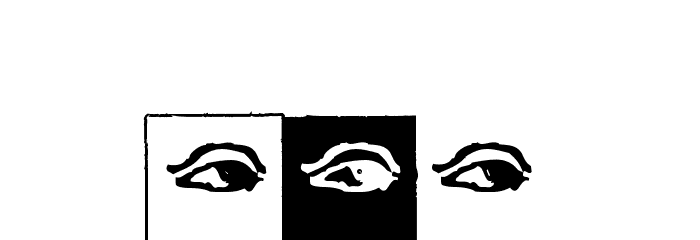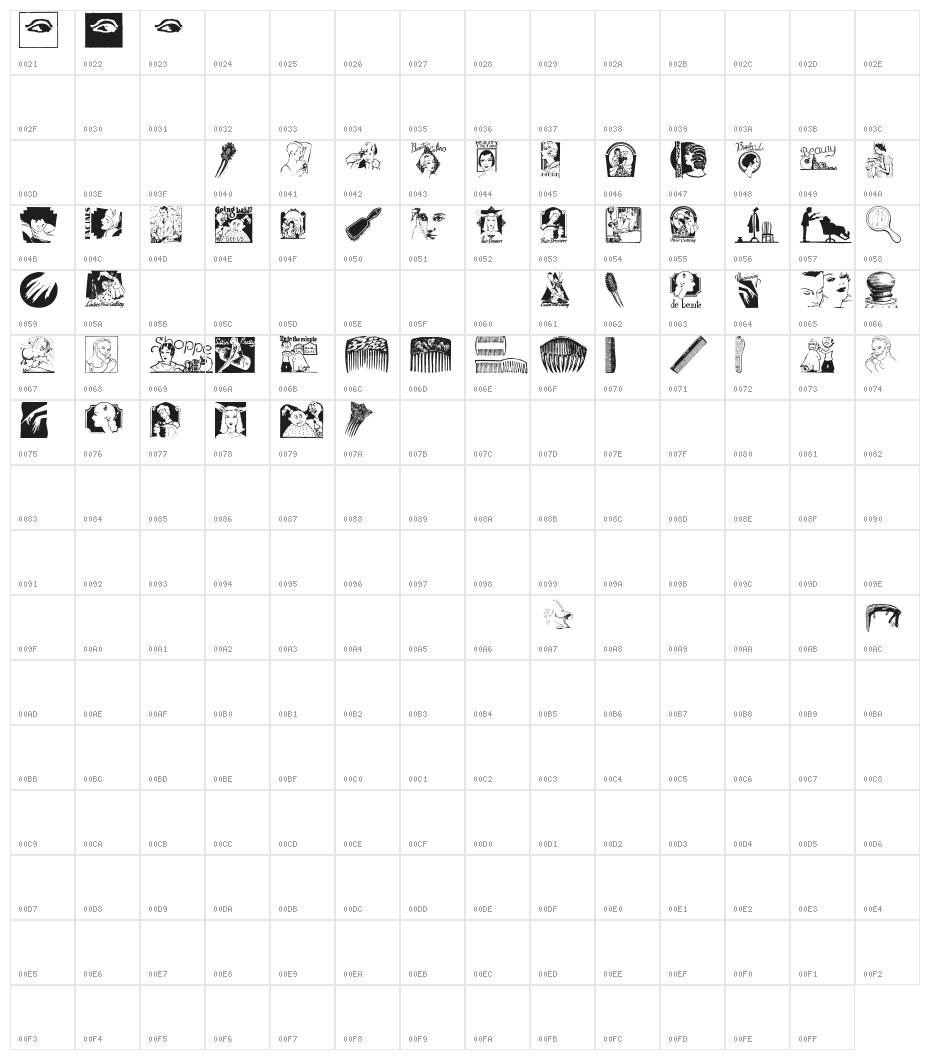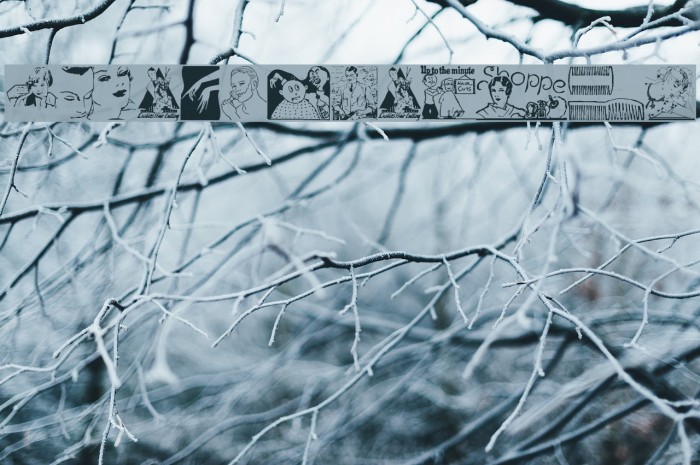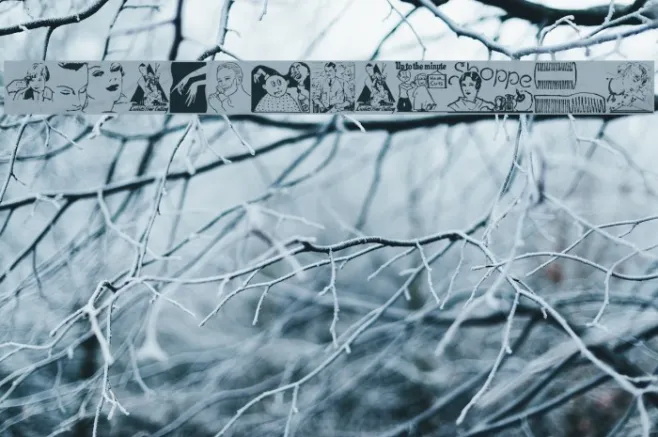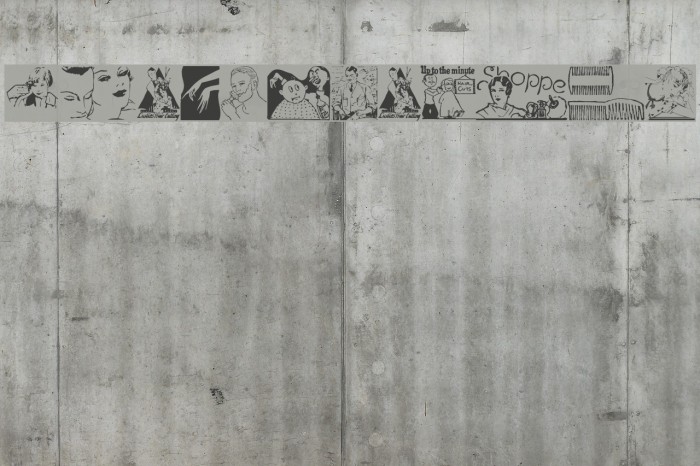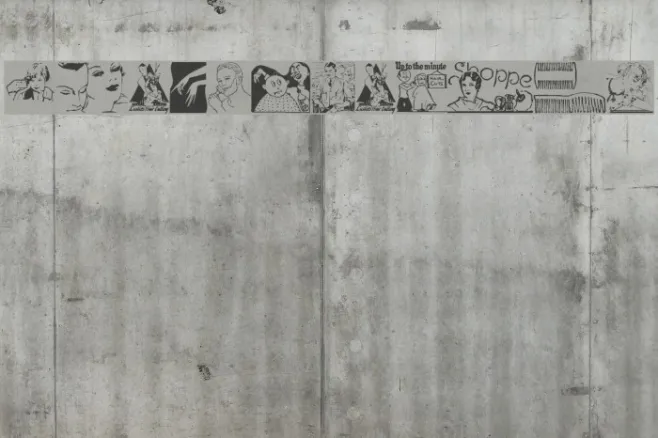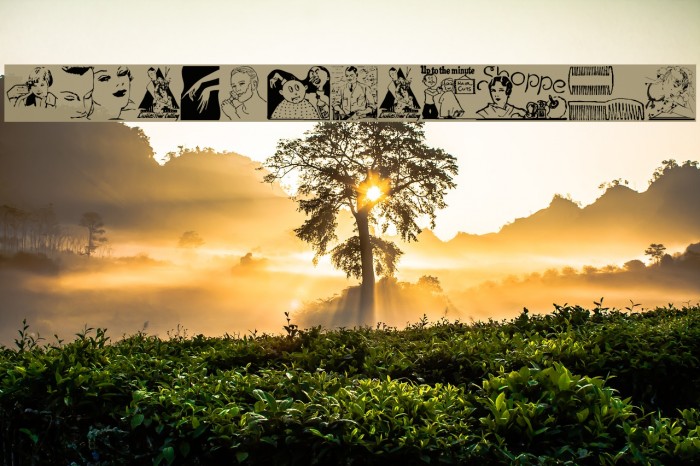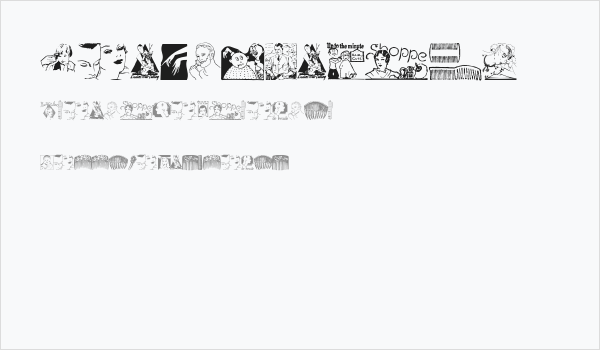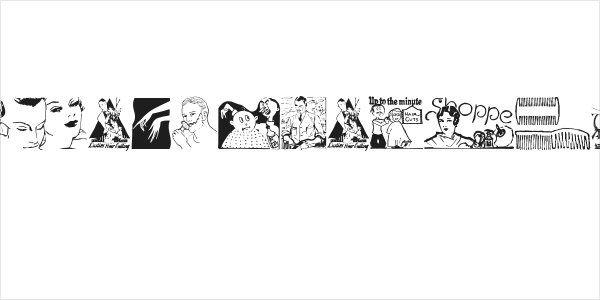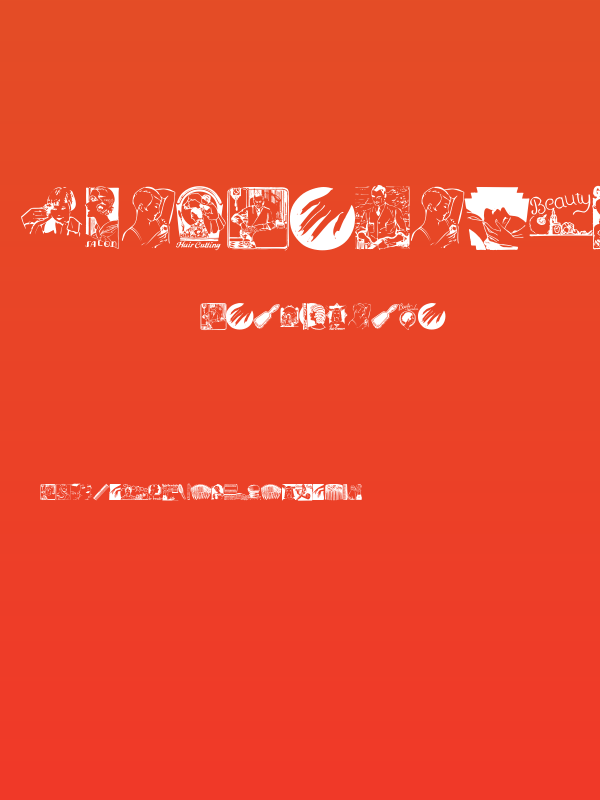
BeautyMaking Font
BeautyMaking Description
This font is a decorative and illustrative typeface that incorporates vintage beauty and grooming themes. Each character is uniquely designed with intricate illustrations depicting various aspects of beauty culture, such as hair styling, makeup, and grooming tools. The font captures a nostalgic and artistic vibe, reminiscent of early 20th-century advertisements and beauty magazines. The characters are highly detailed, making it more suitable for display purposes rather than body text. The overall style is playful and artistic, with a focus on visual storytelling through each letter.
| Proposed Projects | Ideal for retro-themed posters, beauty salon branding, vintage-style advertisements, and artistic projects requiring a nostalgic touch. |